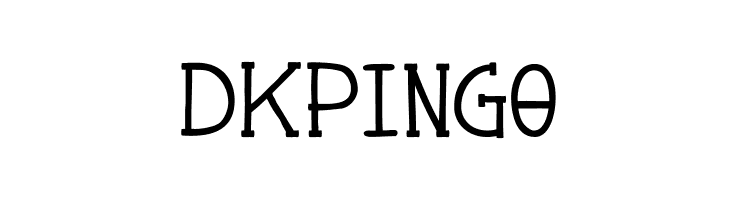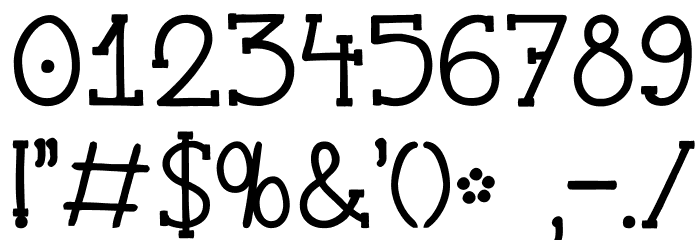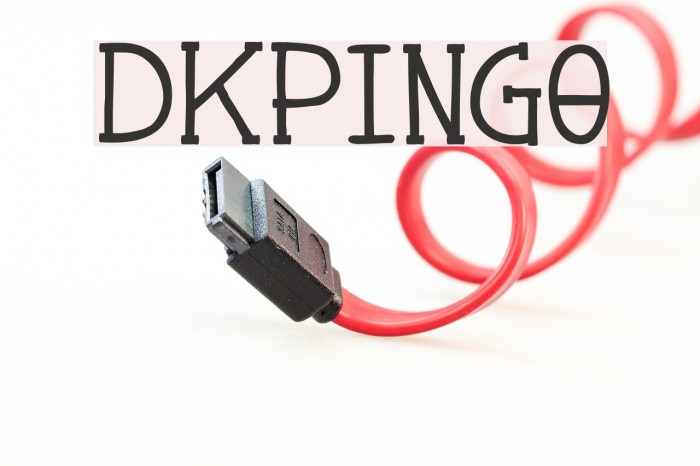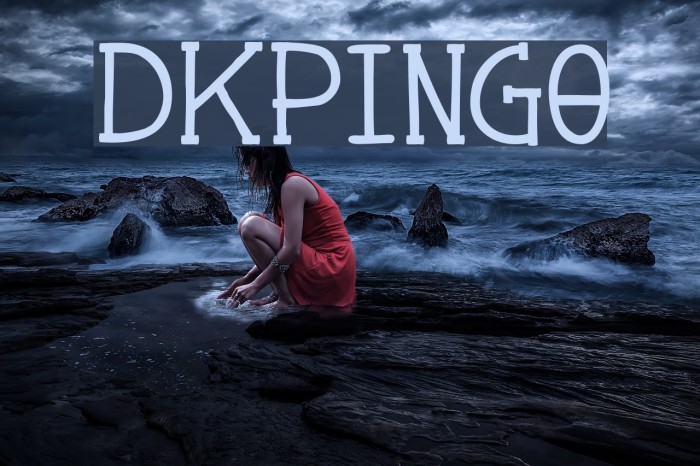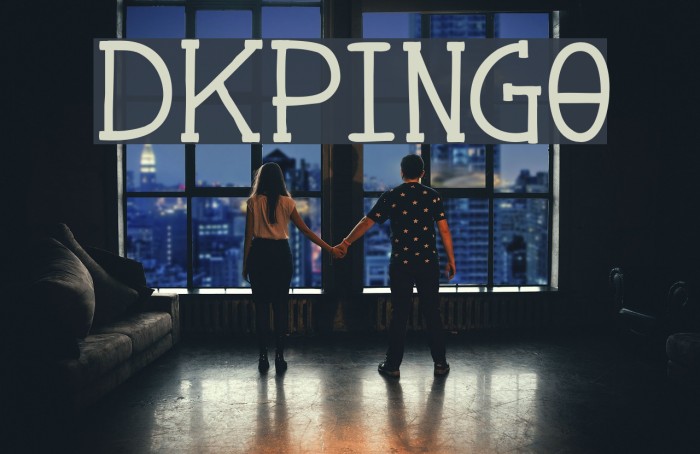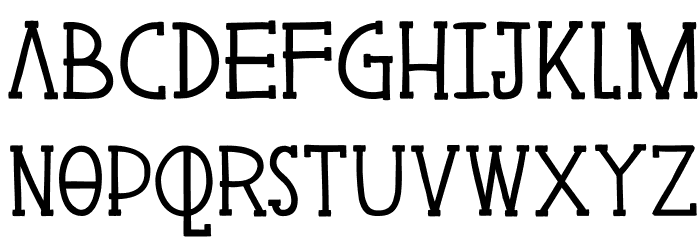
DKPingo Font
This font features a playful and whimsical design with a hand-drawn aesthetic. The characters exhibit a unique blend of geometric and organic shapes, creating a lively and dynamic appearance. The uppercase letters have a slightly uneven baseline, adding to the casual and informal feel. The lowercase letters maintain a consistent style, complementing the uppercase with their quirky curves and angles. Numbers and special characters follow the same playful theme, ensuring a cohesive look across all text elements. The font's distinct personality makes it suitable for creative and artistic projects.
A playful, hand-drawn font with a whimsical and dynamic style.
• Proposed Projects: Ideal for children's books, greeting cards, playful branding, and creative posters.
• Category: Decorative/Display
• Overall Style: Whimsical, Playful
• Use Case: Headlines, Logos, Creative projects